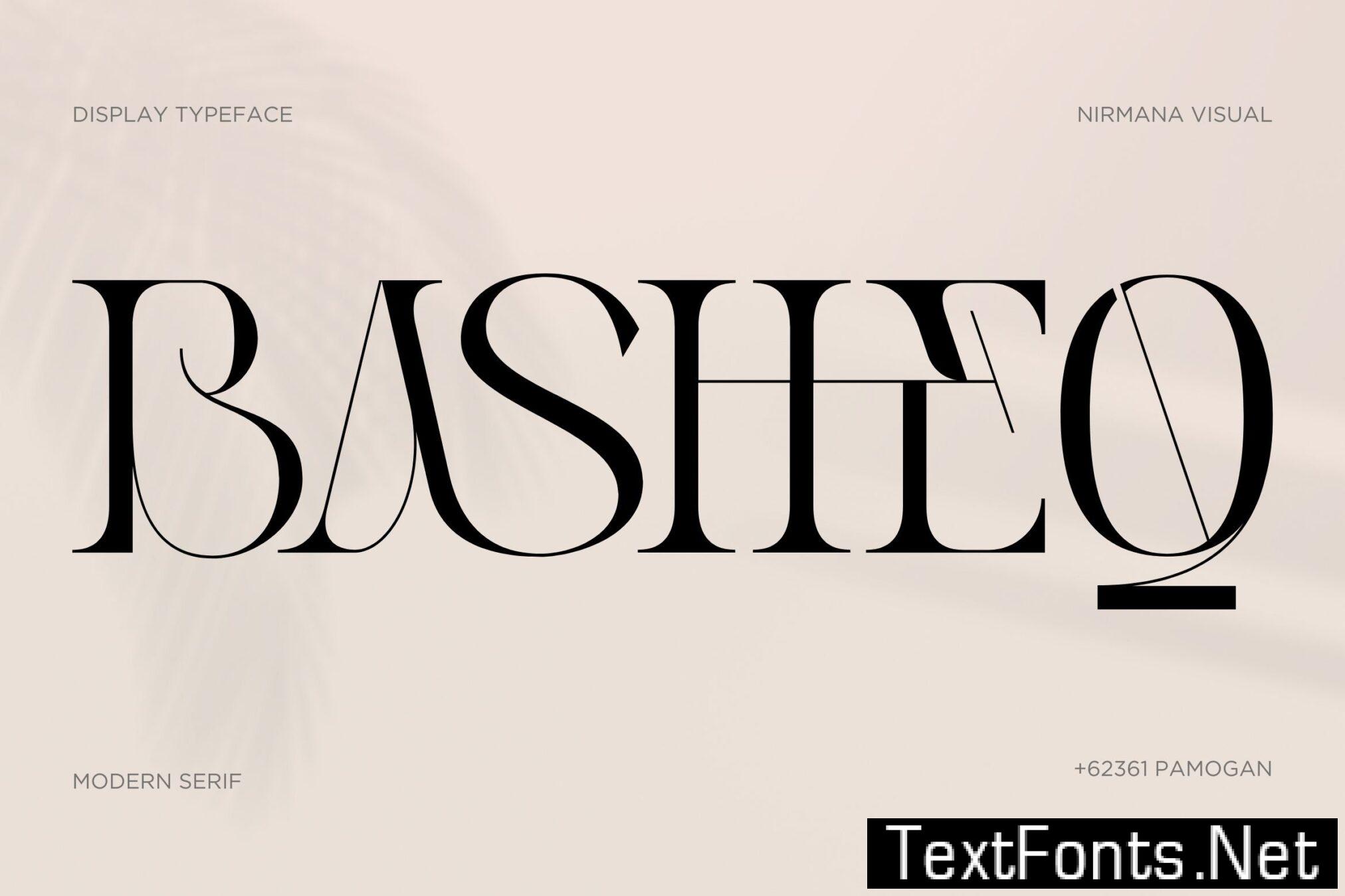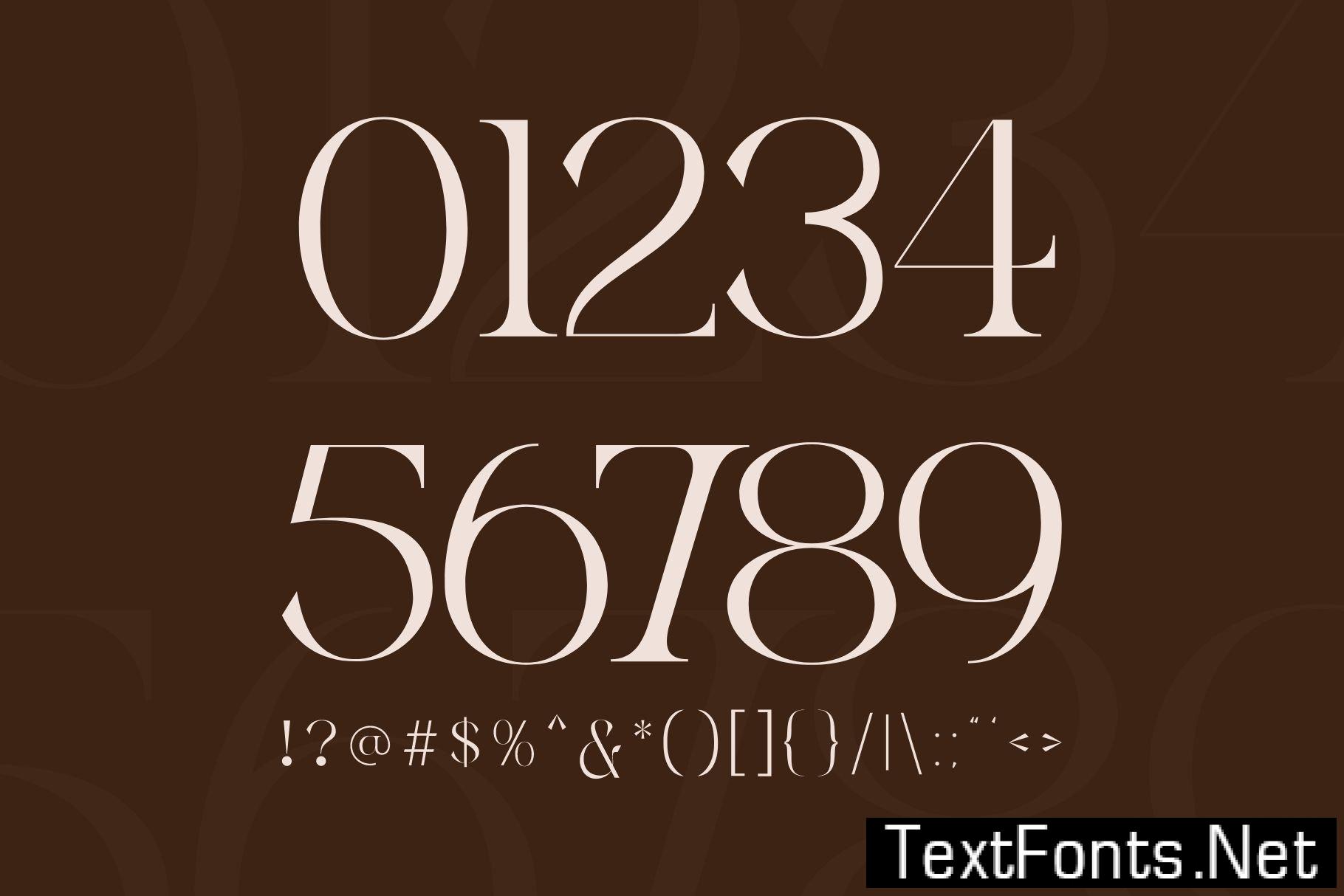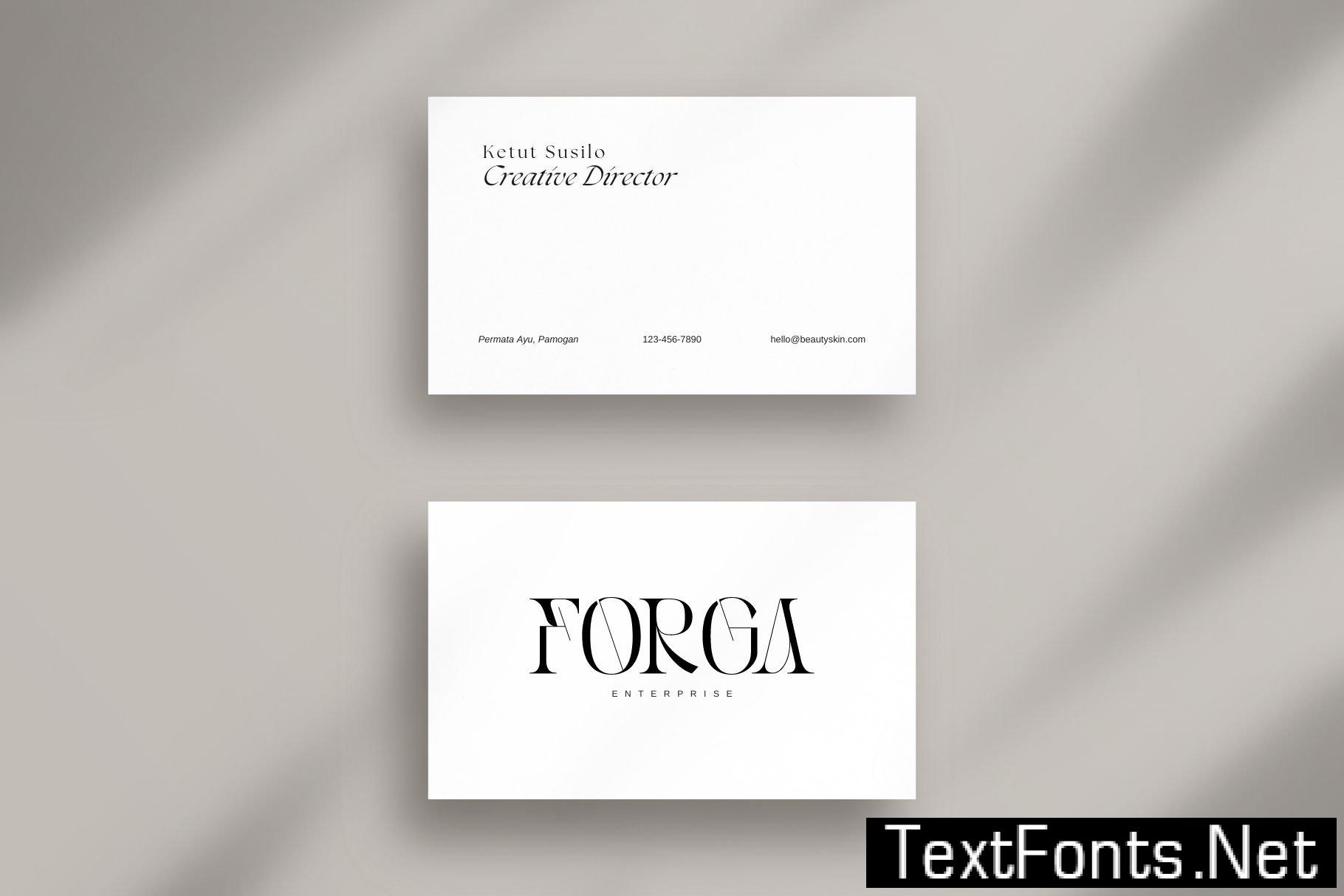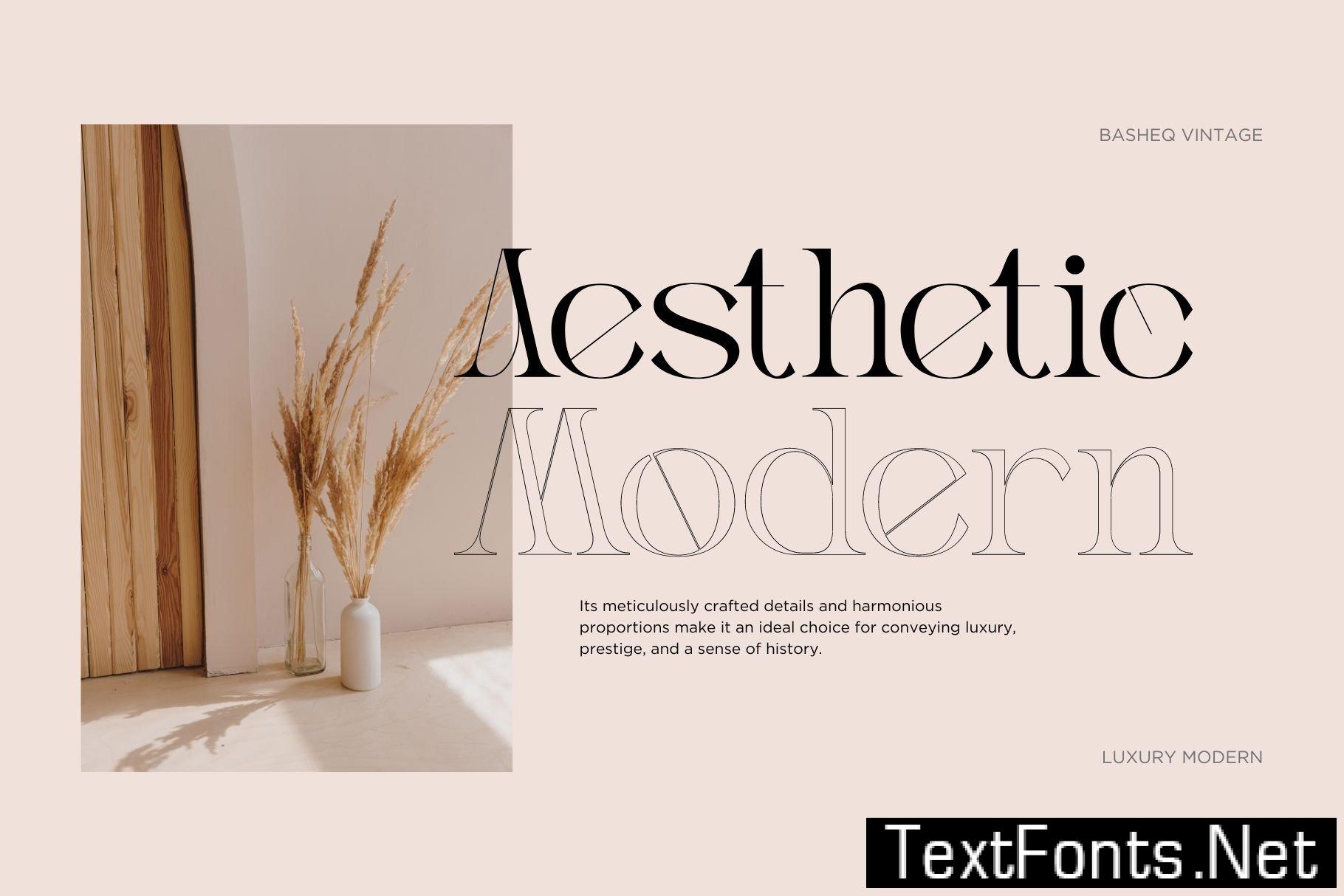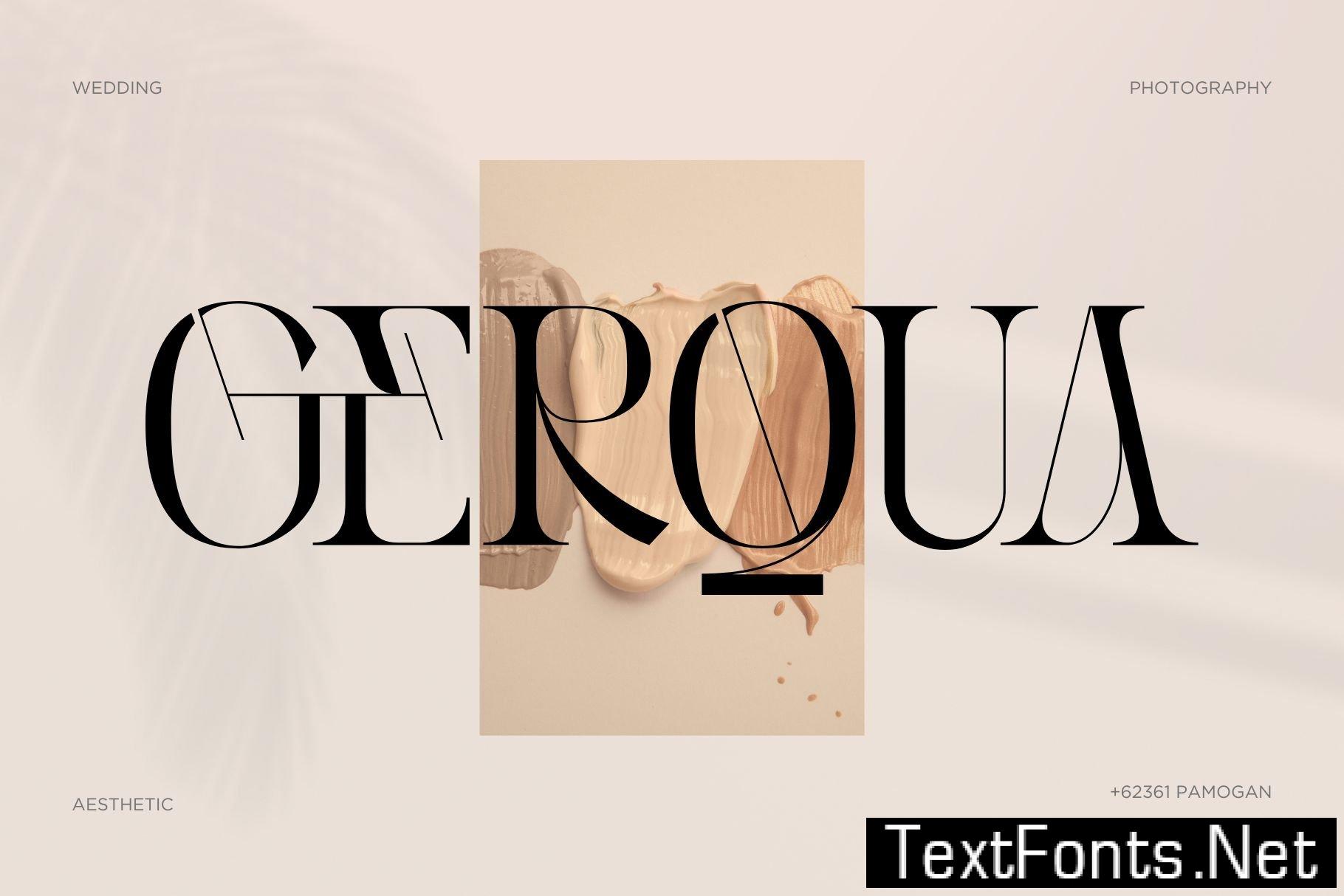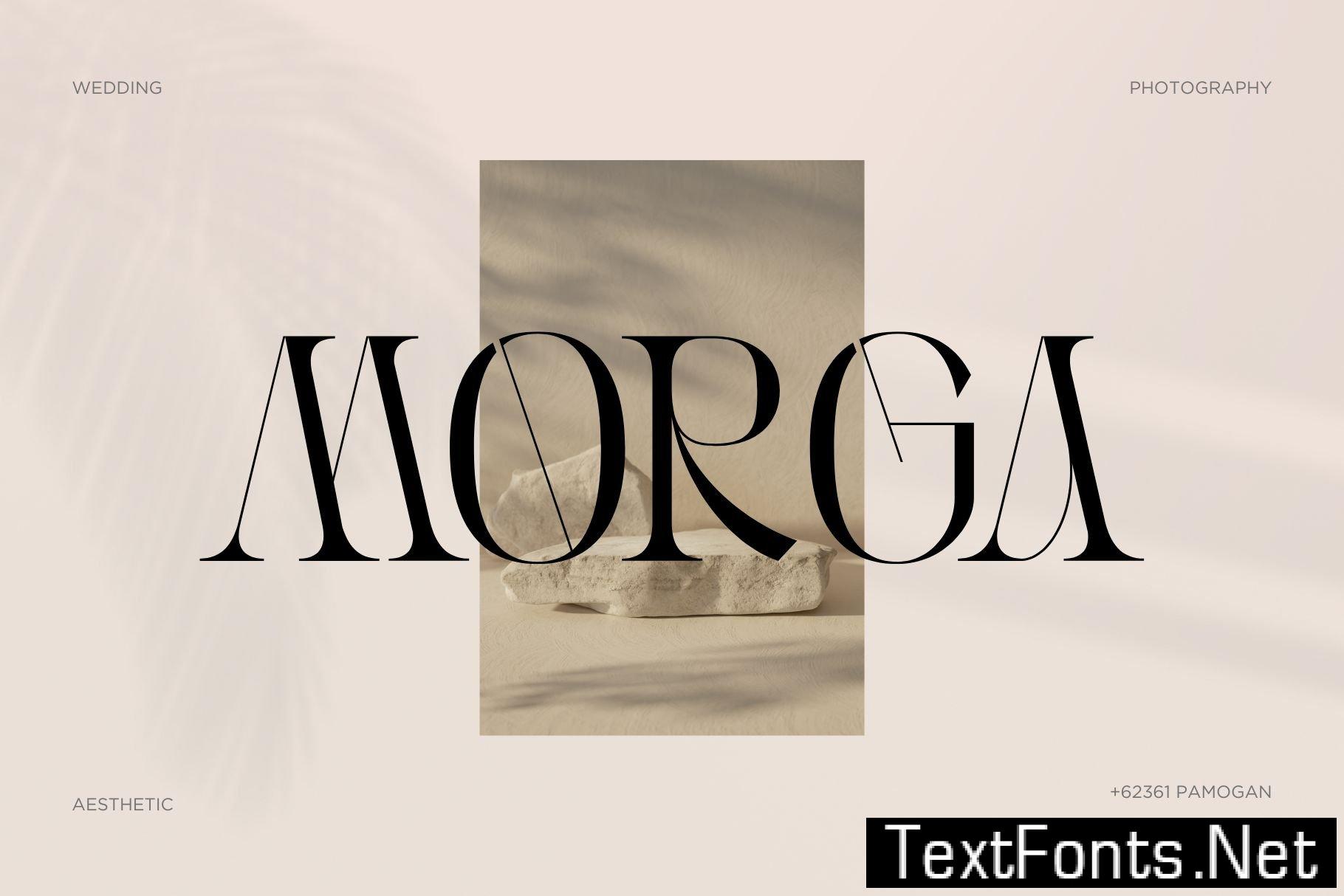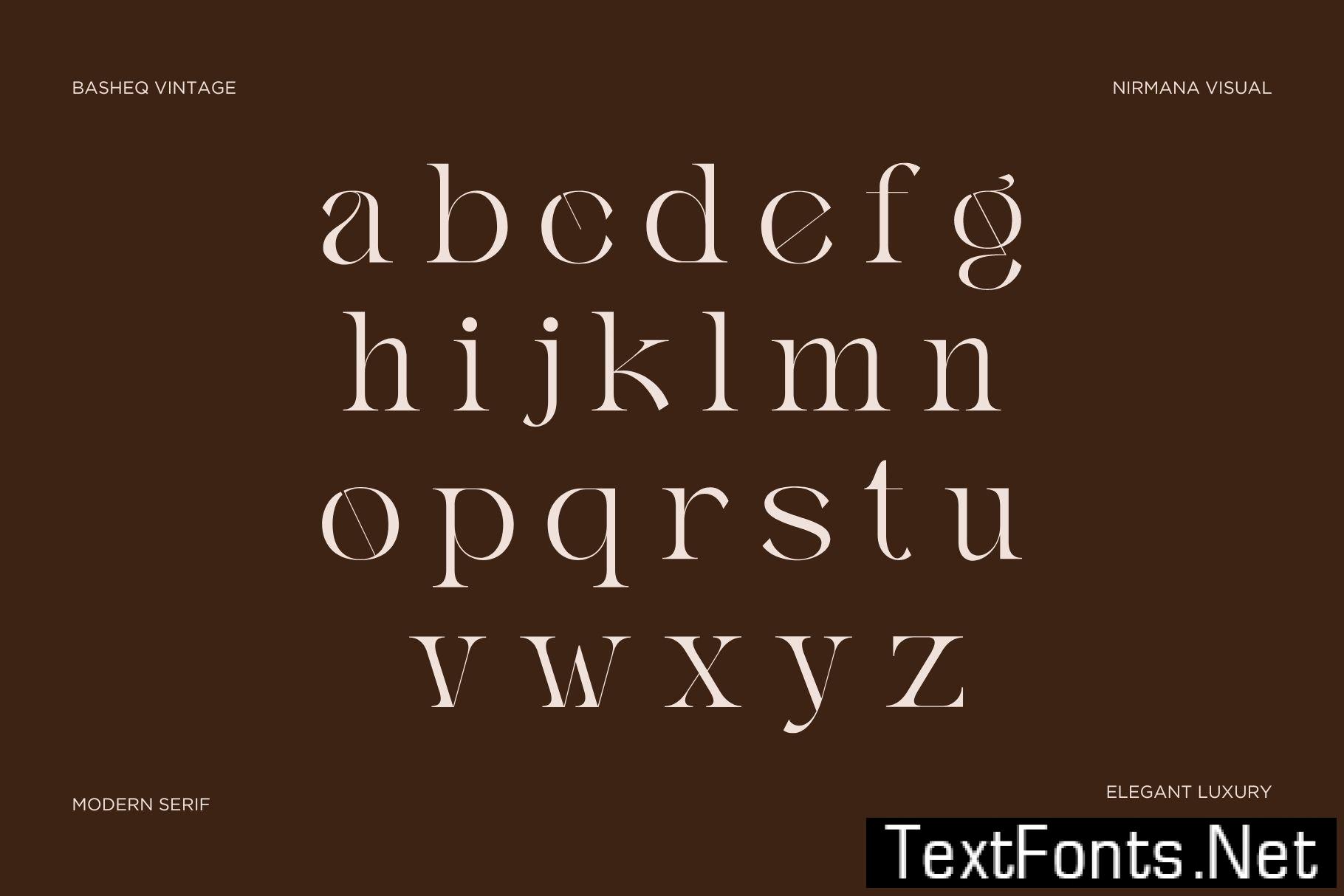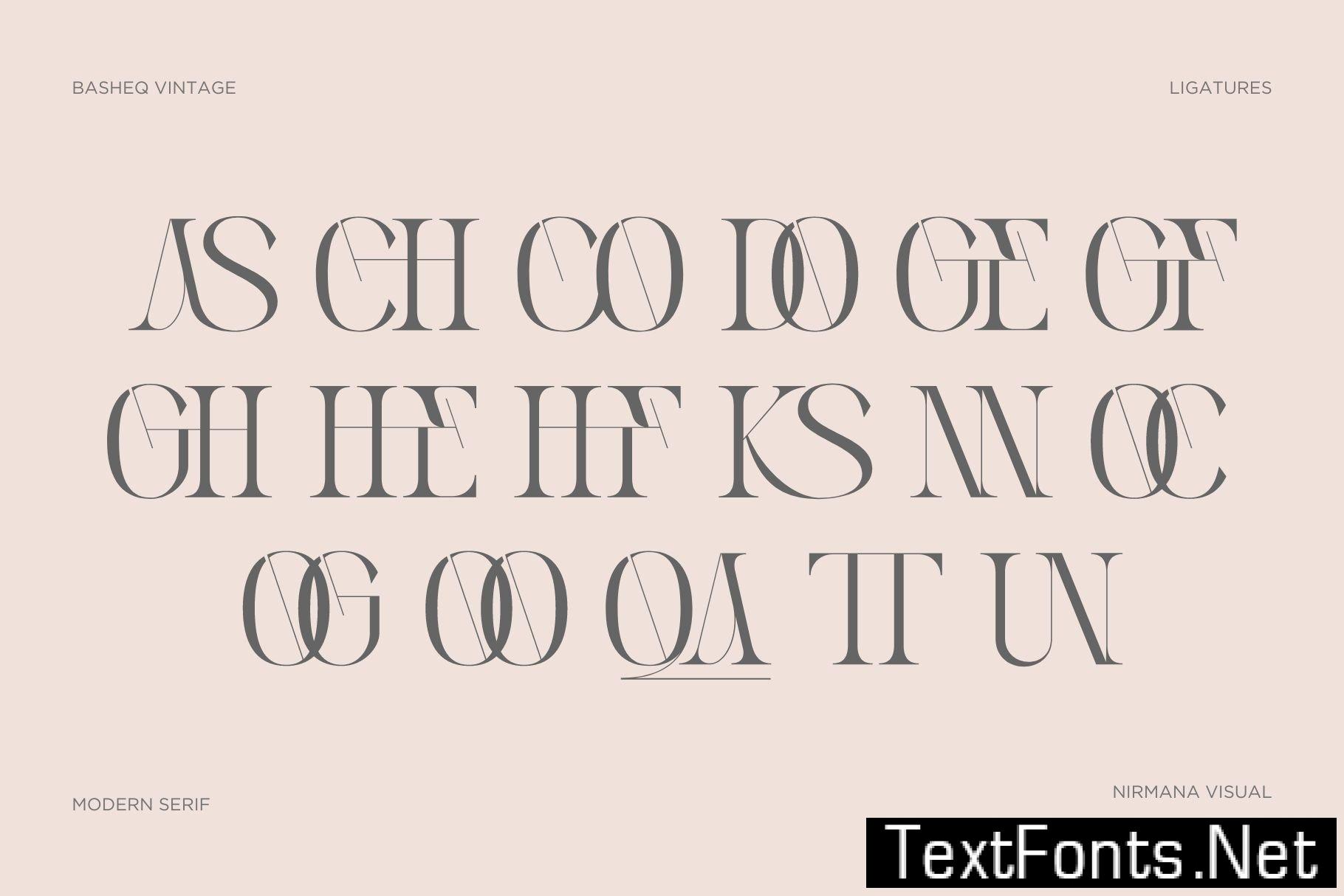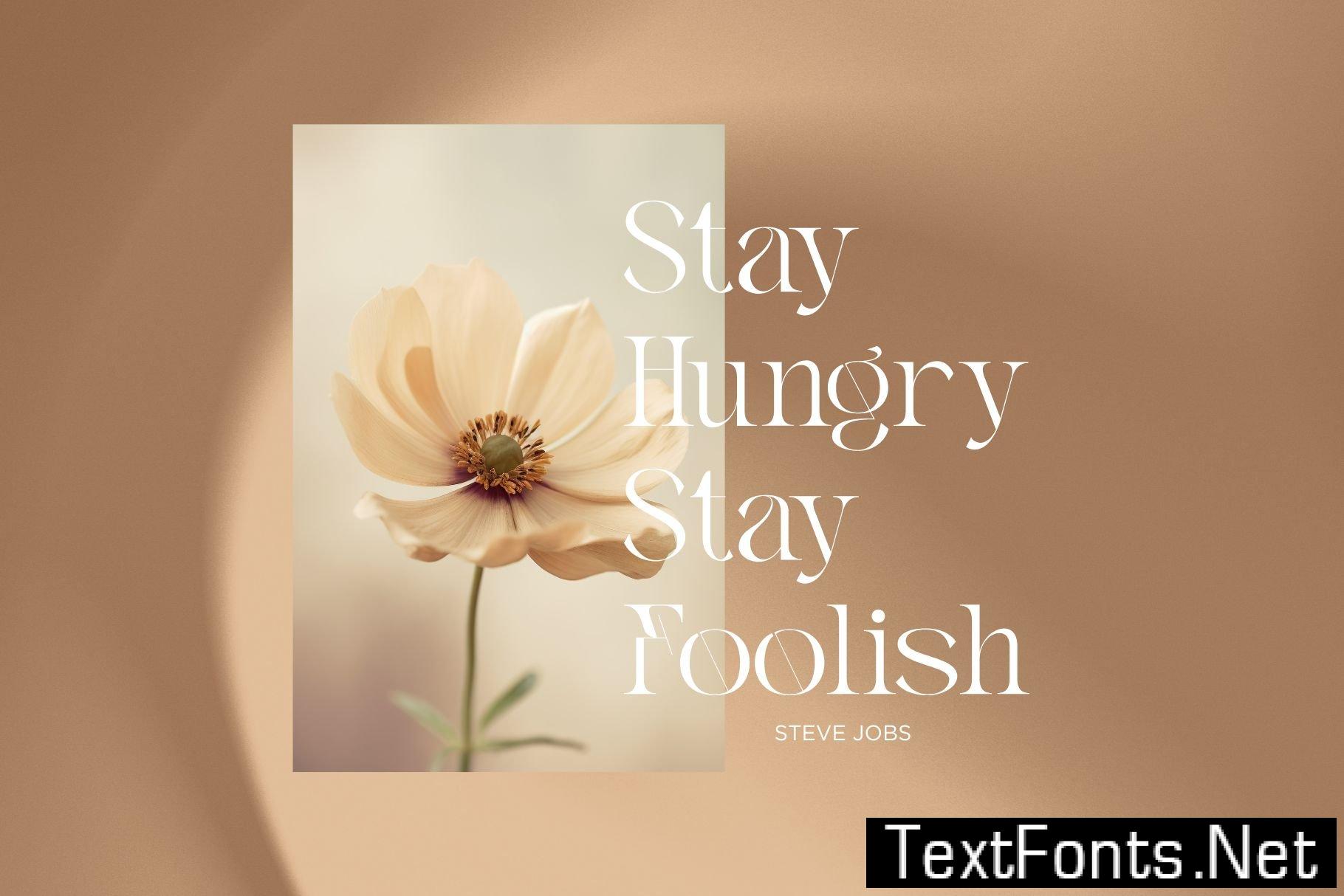
**Basheq Vintage – Modern Serif Logo Font**
Basheq Vintage – Logo Font offers beautiful typographic harmony for a diversity of design projects, including logos & branding, social media posts, advertisements & product designs.